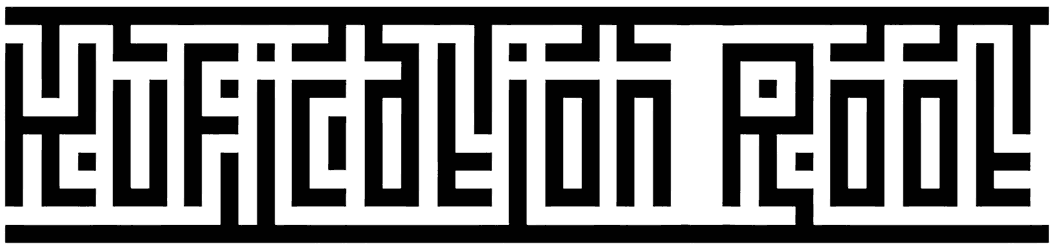
Kufication Root is a maze font with an alien character whose letters are not so easy to read. This T-shirt font has twists and turns that can add depth to your writing and make the viewer discover the secret inside it.
So, if you’re looking to navigate complexity using design and display meaningful information, Kufication Root is ready to download. You can use this labyrinth font to design T-shirts, decorate text borders, and draw lines.